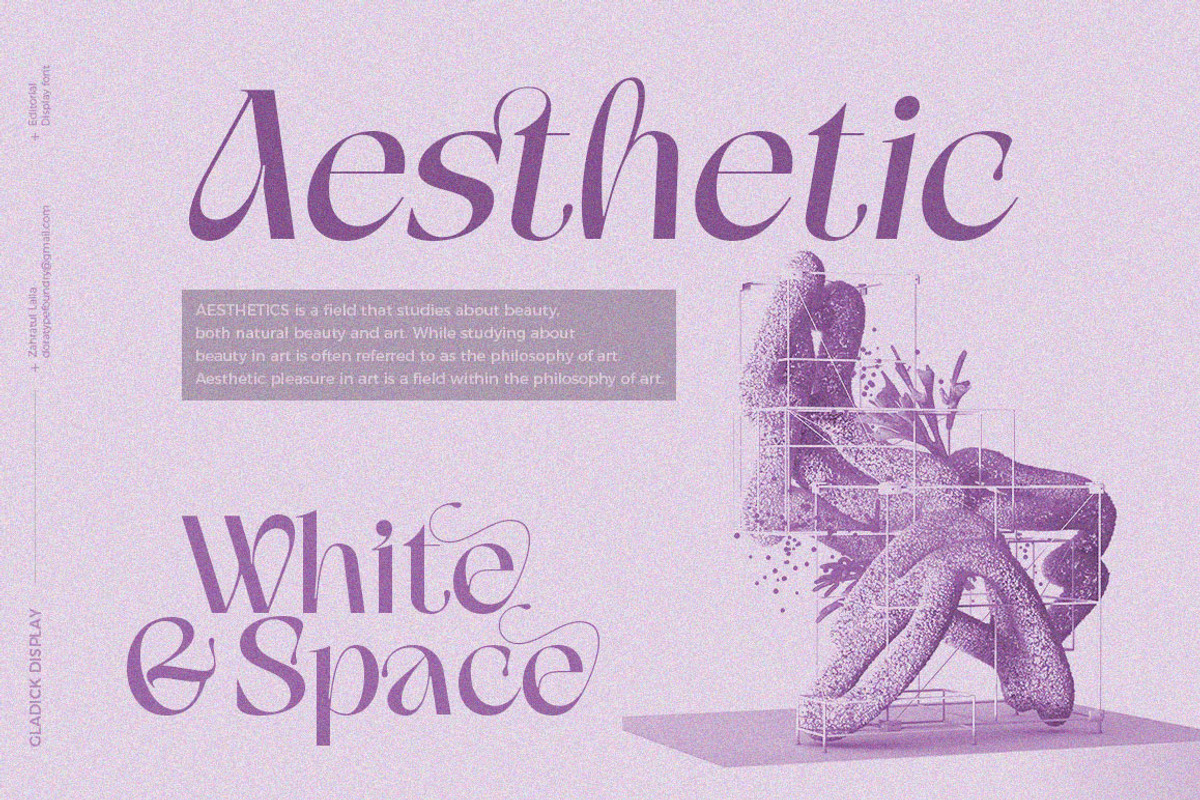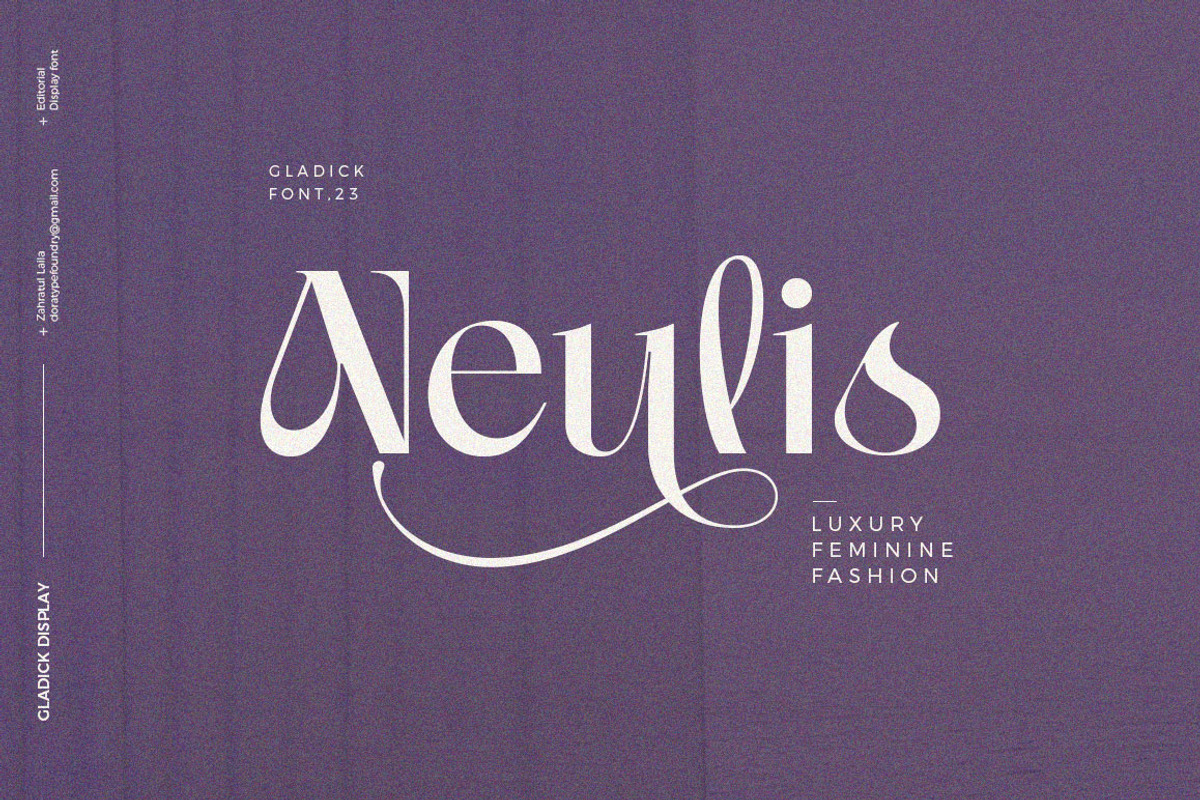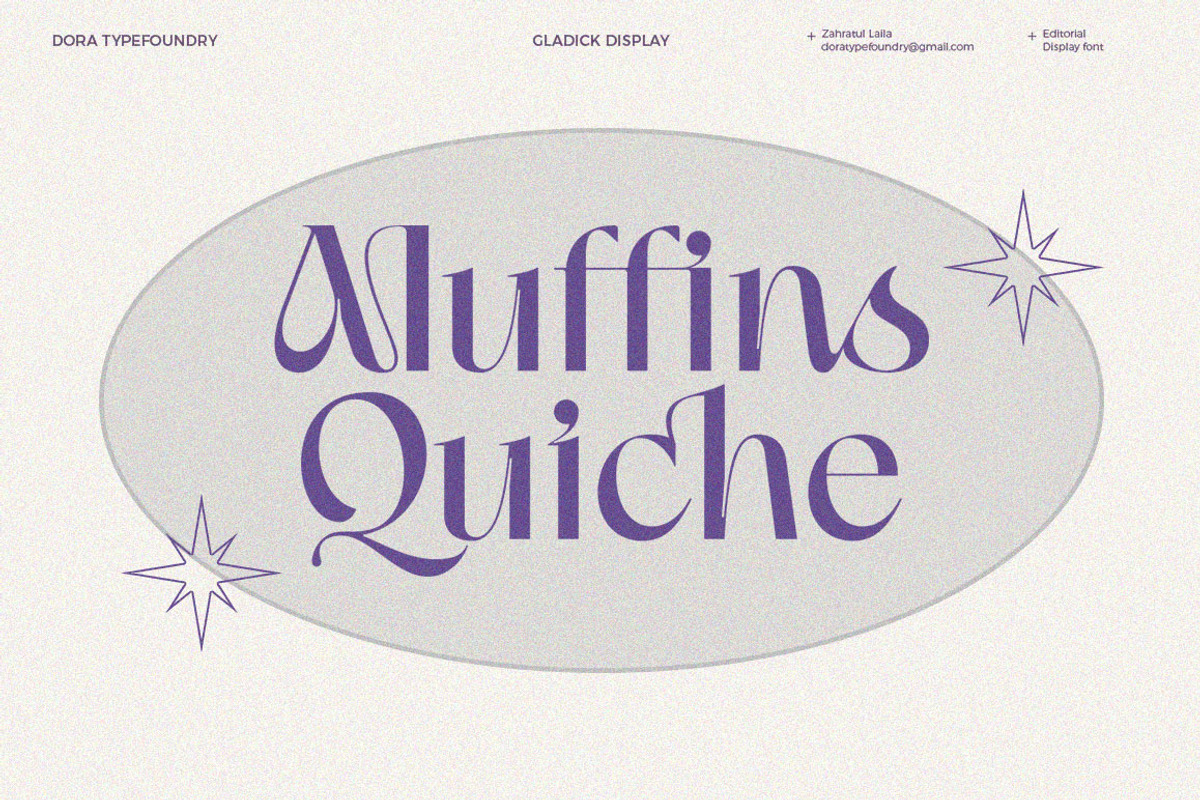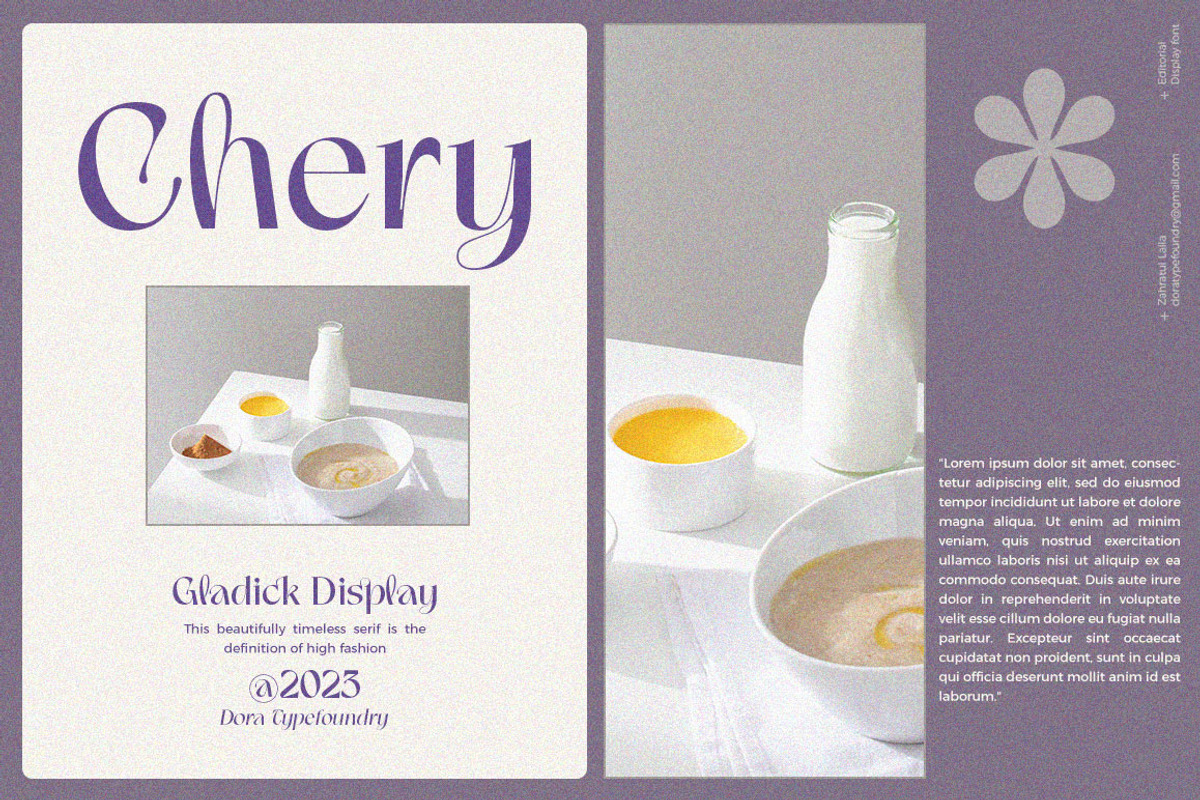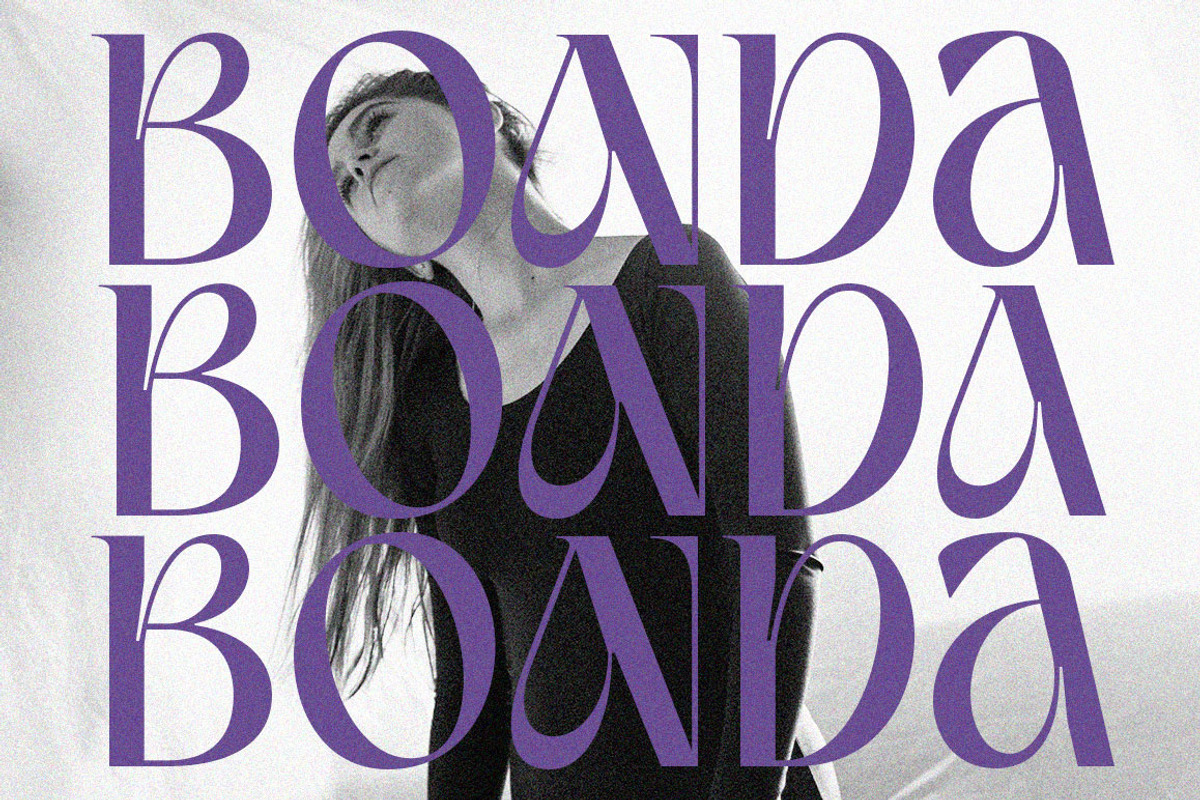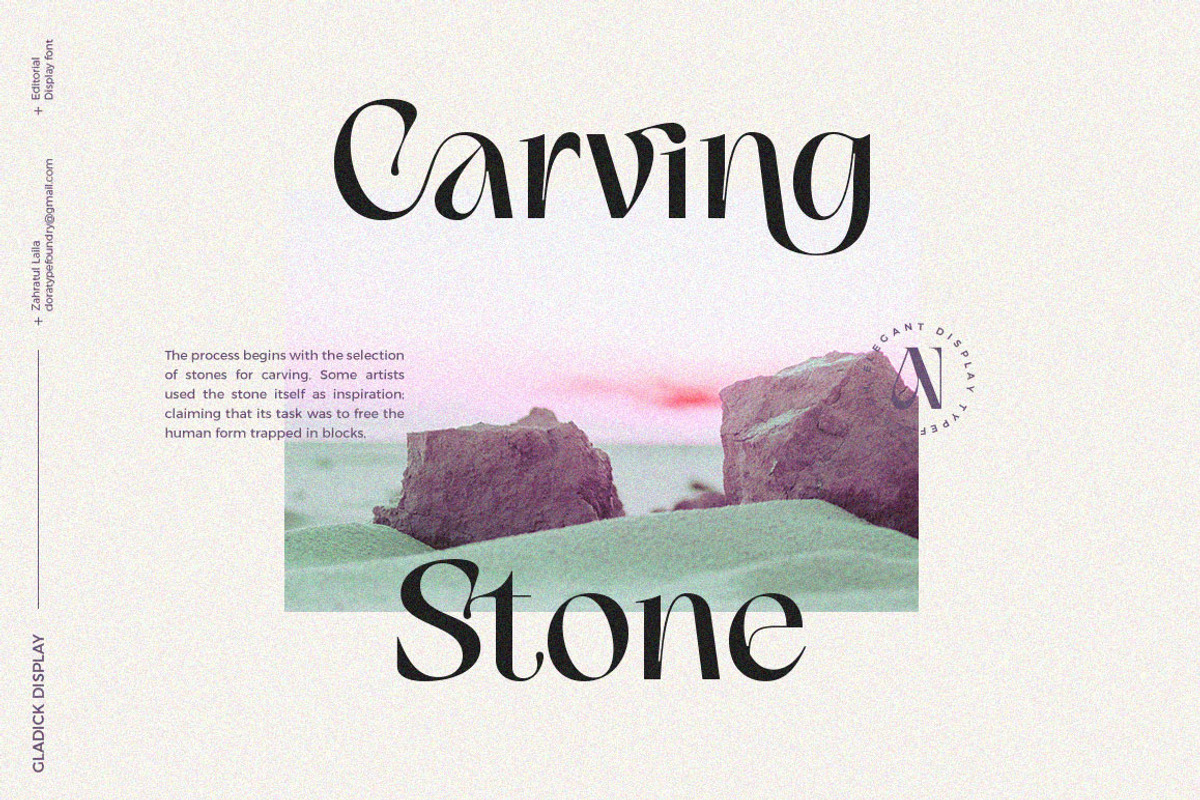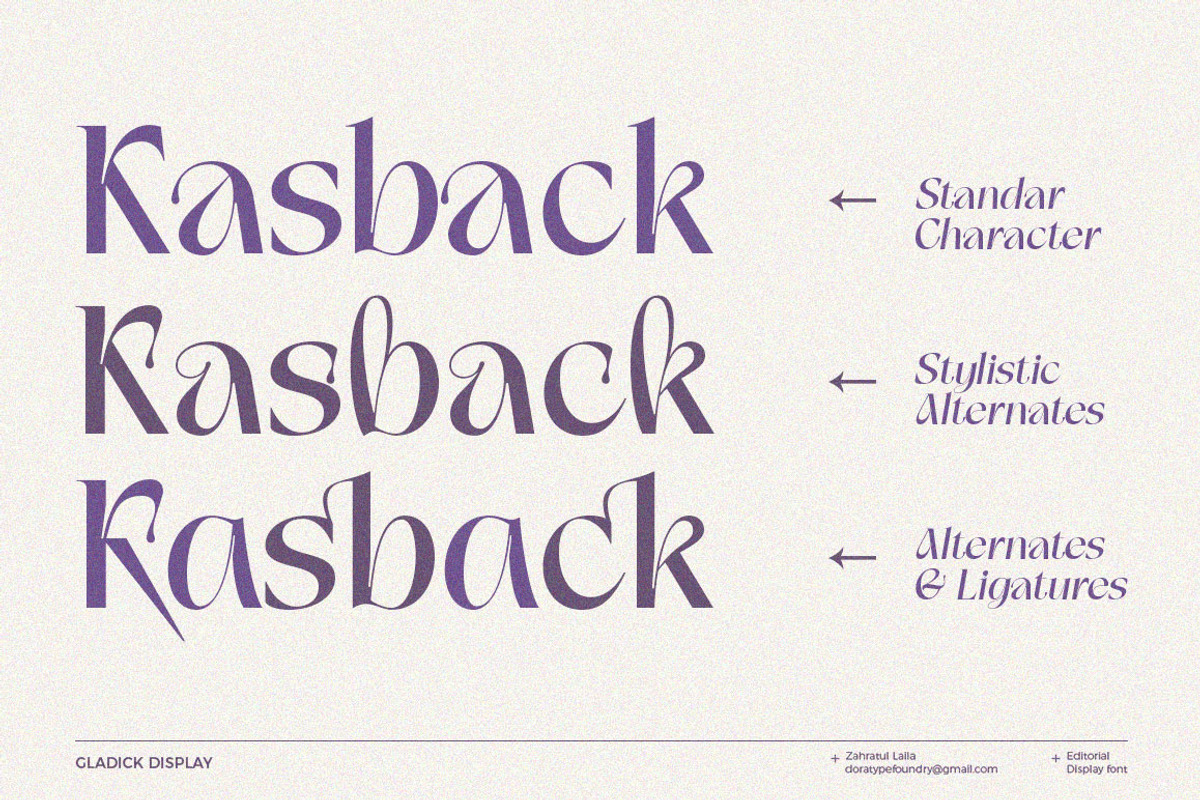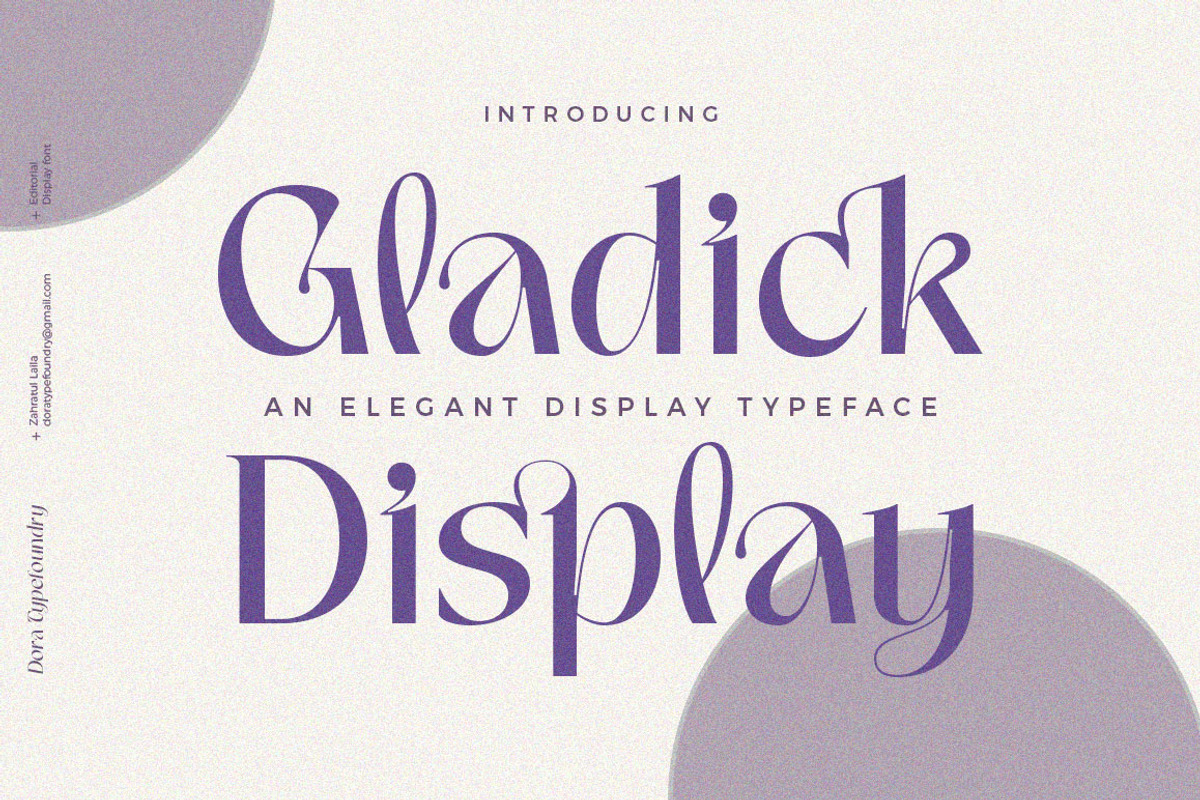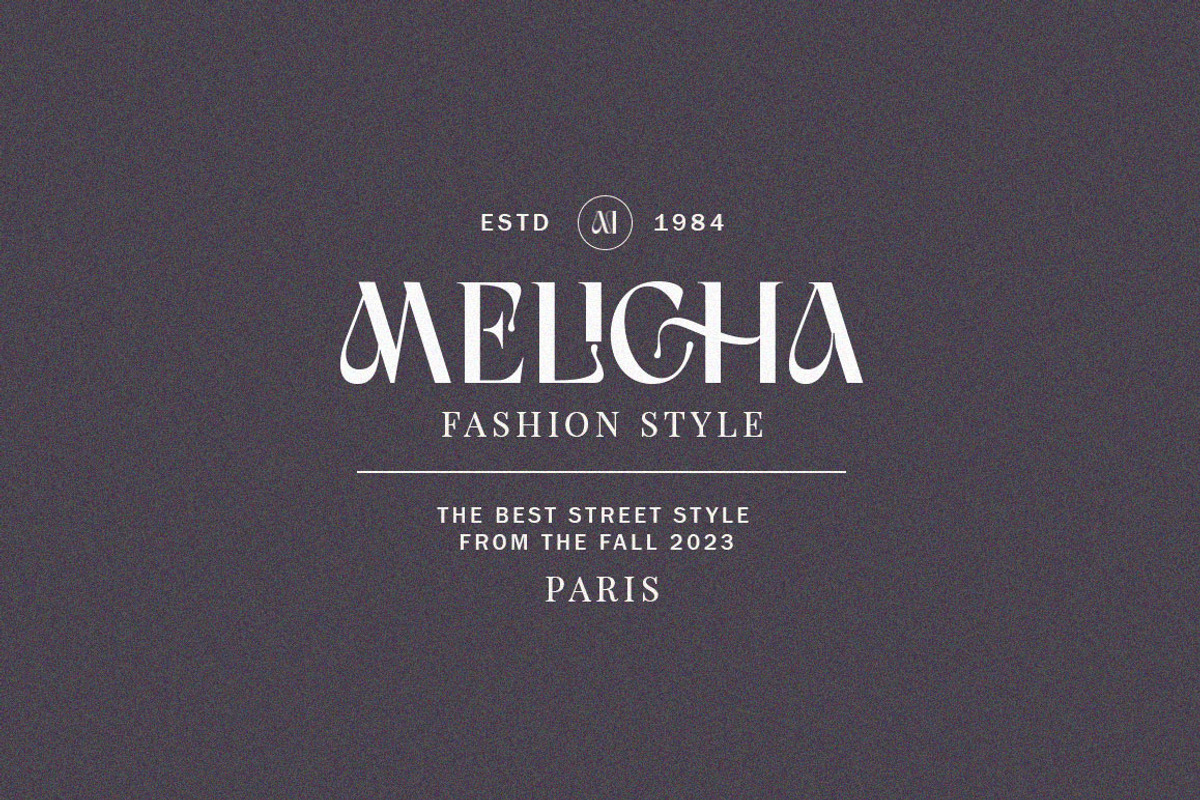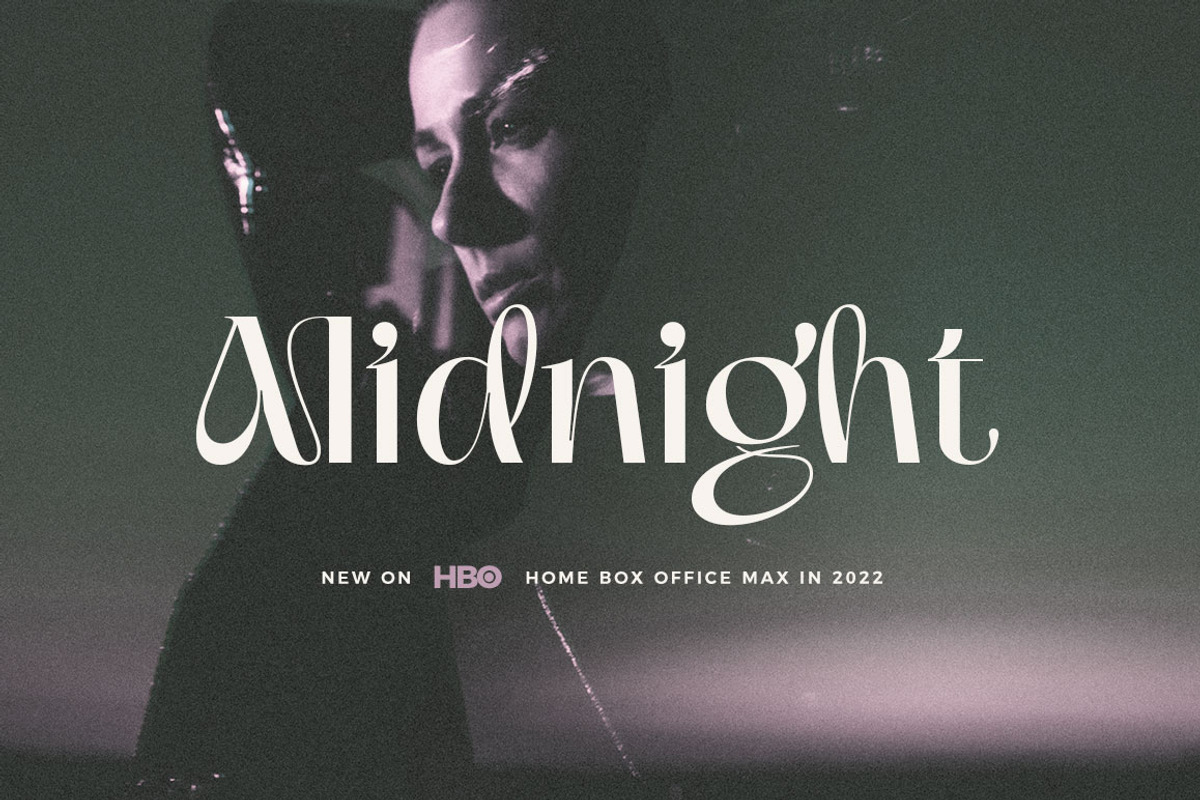
Gladick - Modern Typeface
Gladick is a modern take on a sans style typeface but mixes in the added contrast of serifs to make the font contemporary and memorable. Each letter is crafted with care to make your text unique yet stylish. Soft curves make for a bold type Now with the addition of italics. Great for fashion branding and editorial design.
- All Uppercase and Lowercase
- Alternates and Ligatures